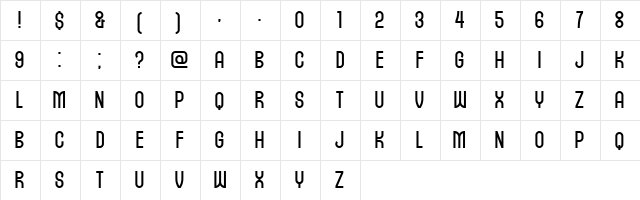
Broadcaster Regular
Design Context for Broadcaster Typeface
Broadcaster is a composed and adaptable typeface that performs quietly and consistently across a wide range of design contexts.